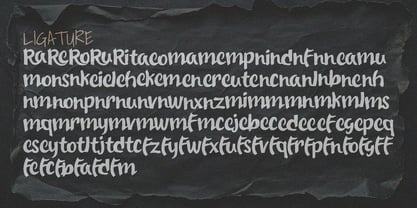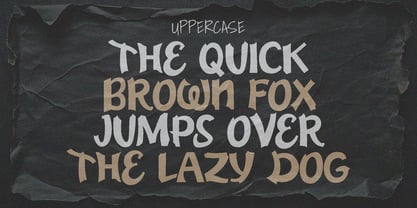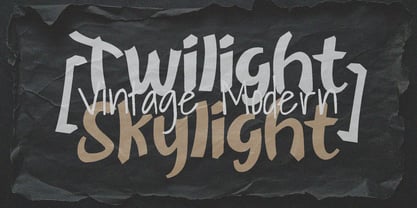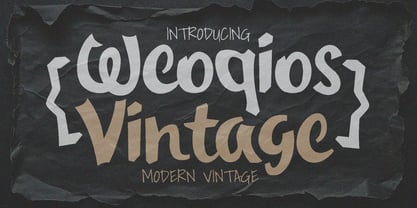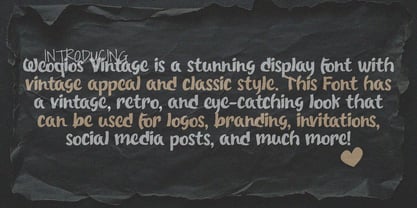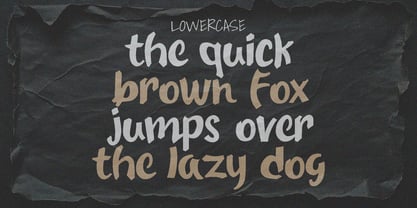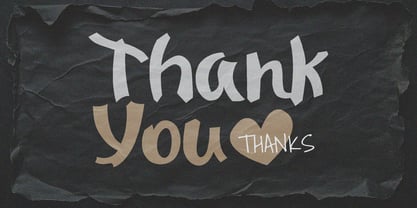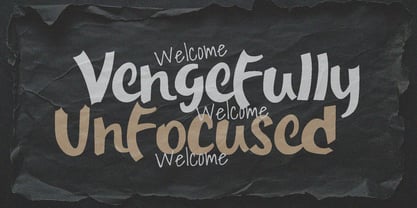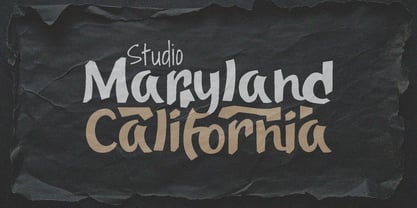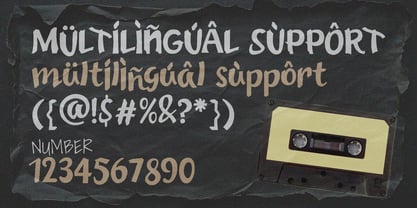
Weoqios Vintage
by Erifqizefont
The Weoqios Vintage Font Family was designed by Eka Rifqi Setiawan and published by Erifqizefont. Weoqios Vintage contains 1 styles. More about this family
Weoqios Vintage is a captivating display font that perfectly blends modern vintage aesthetics with classic charm. Featuring a timeless retro appeal, this font is designed to stand out and elevate your projects with its eye-catching style. Whether for logos, branding, invitations, social media posts, or more, Weoqios Vintage adds a touch of elegance and character to every design. Plus, with multilingual support, it ensures versatility across diverse languages and audiences.